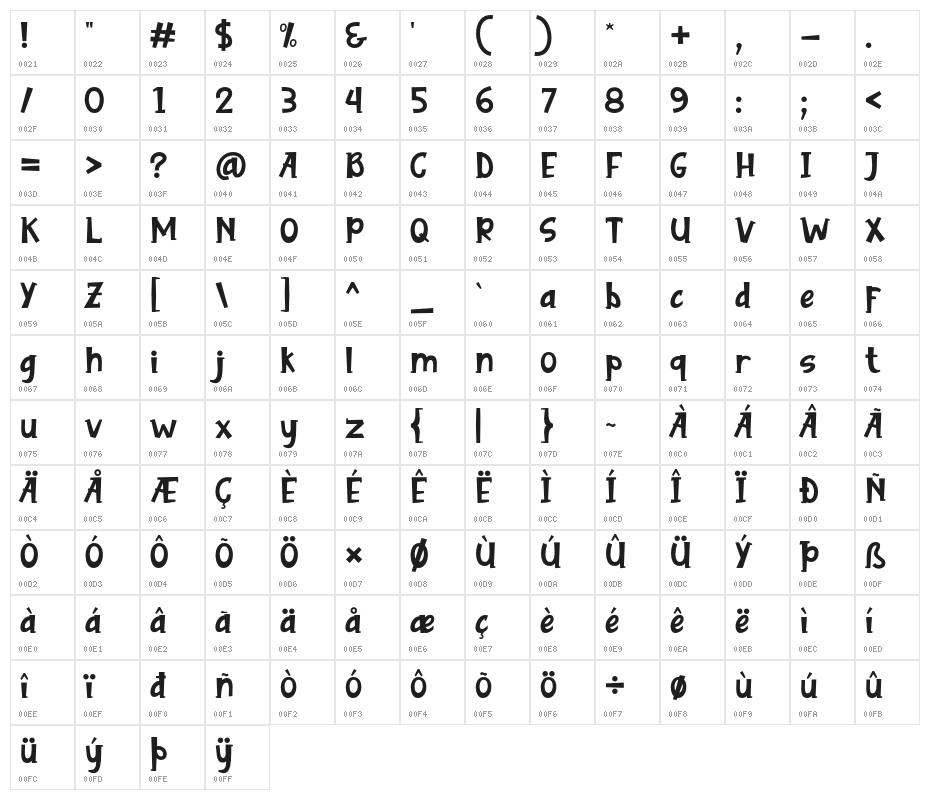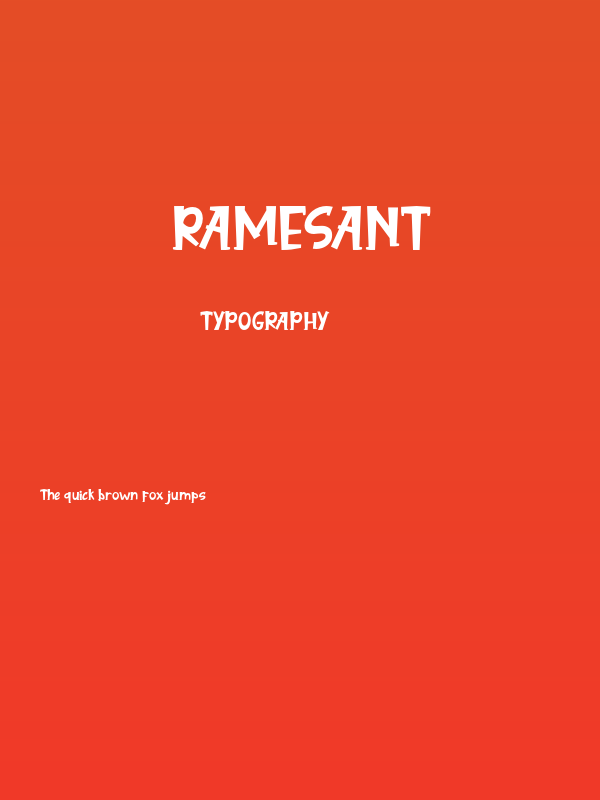
Ramesant Font
Ramesant Description
This font features a playful and whimsical design, characterized by its bold and slightly irregular letterforms. The uppercase letters are distinct with exaggerated curves and varying stroke widths, giving it a hand-drawn appearance. The lowercase letters maintain this playful style, with some characters like 'g' and 'y' having unique, looping descenders. The numerals are bold and rounded, complementing the overall style. Special characters are creatively designed, adding to the font's quirky personality. This font is ideal for projects that require a fun and informal touch.
| Overall Style | Playful, Whimsical, Hand-drawn |
| Proposed Projects | Ideal for children's books, playful branding, greeting cards, and informal posters. |